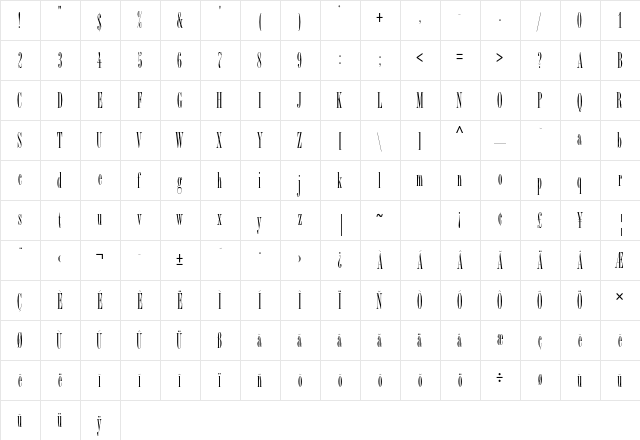
Bordeaux Roman Std Regular
| Designer | David Quay |
Design Context for Bordeaux Roman Std Typeface
Bordeaux Roman Std is a composed and adaptable typeface that performs quietly and consistently across a wide range of design contexts.